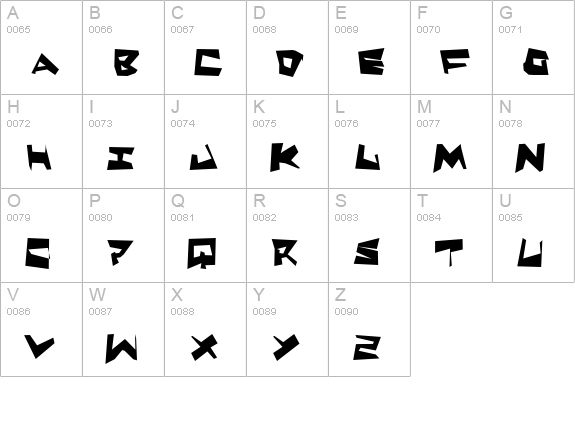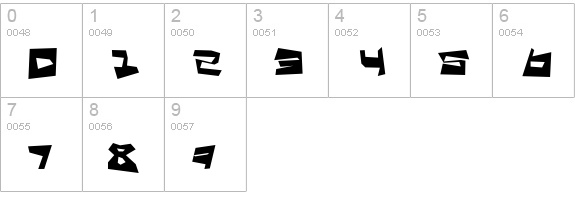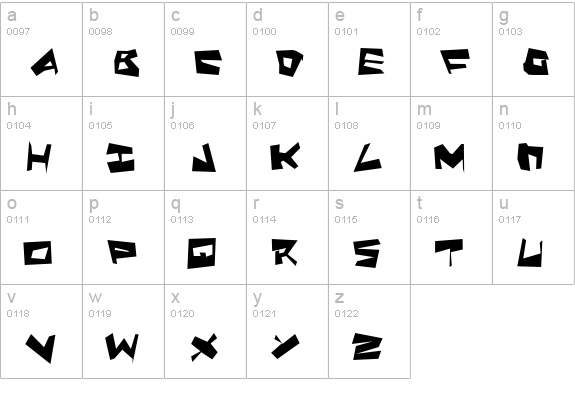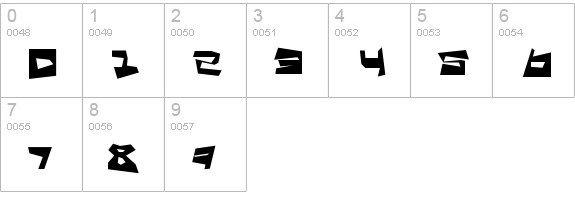
Quake & Shake SuperMax Font Details
Introducing the Quake & Shake SuperMax font, a powerful and bold typeface that will shake up your design projects with its dynamic and energetic style. This font is all about making a statement, commanding attention, and leaving a lasting impact. Quake & Shake SuperMax is designed with meticulous attention to detail, ensuring that each character is perfectly balanced and visually striking. With its strong lines and sharp edges, this font exudes confidence and strength, making it ideal for headlines, logos, posters, and any design that needs a touch of boldness. But what truly sets Quake & Shake SuperMax apart is its versatility. Whether you're going for a modern and edgy look or a retro and nostalgic feel, this font can adapt to your creative vision effortlessly. Its range of weights and styles allows for endless possibilities, ensuring that you'll find the perfect fit for your project. And the best part? Quake & Shake SuperMax is available for free! You can download this exceptional font at FontsMarket.com, where you'll find a wide range of high-quality fonts for all your design needs. Don't miss out on this opportunity to add a touch of excitement and impact to your designs without breaking the bank. So go ahead, unleash your creativity with Quake & Shake SuperMax, and let it shake things up in the world of typography. Get your hands on this free font today and elevate your designs to new heights.